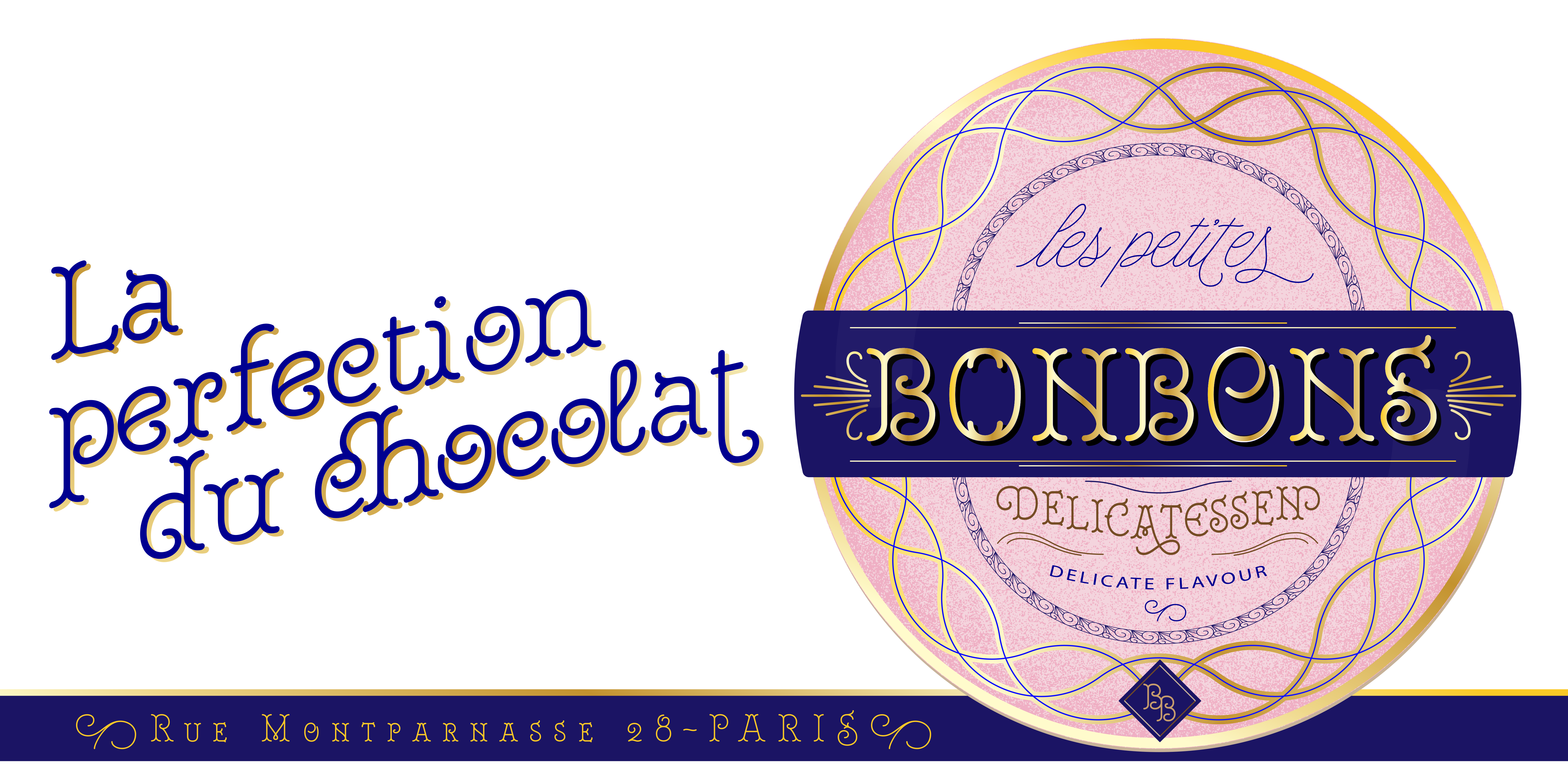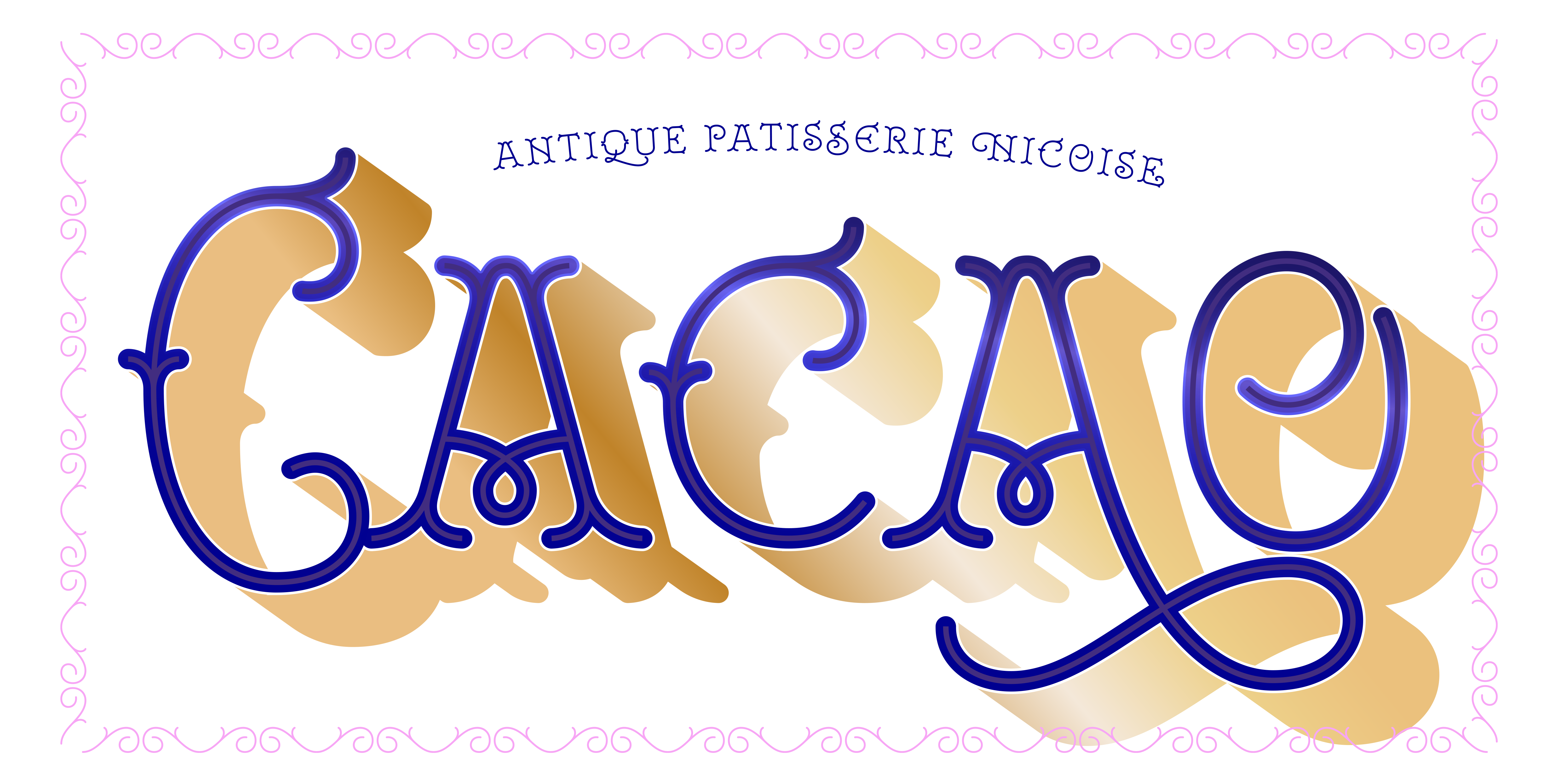
Royale
Monoline font with Tuscan Serifs
Royale
Designed by Resistenza Type Foundry
Tuscan genre in a contemporary, warm and playful form. Rounded terminals, fabulous fancy fun spurs with elegant and extravagant flourishing - Royale comes in 8 weights and 4 widths which can also be layered to create polychromatic effects in another nod to the Victorian era these styles were popularised. While inspired by days gone past this Royale is far from a revival as unlike the classic Tuscans which inspired its structure Royale is monoline and sophisticated in its simplicity. Perfect for display and emphasis, Royale will command attention and leave a memorable impression wherever it is used.